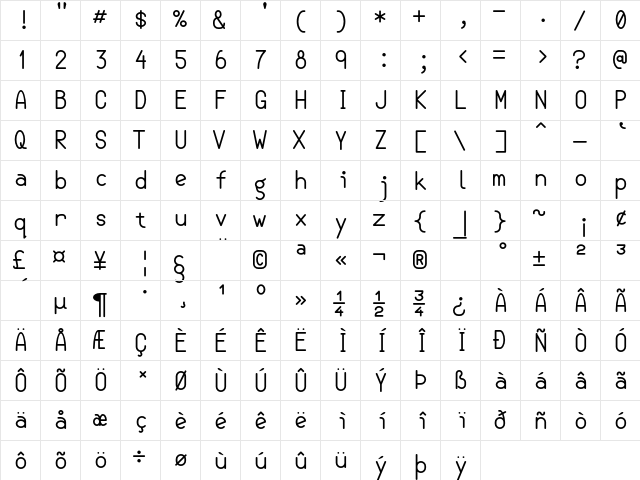
Semi-Coder Regular
Design Context for Semi-Coder Typeface
Semi-Coder brings the precise, column-aligned rhythm of monospaced typography to designs that value technical clarity and systematic order.
Pro Tip: Use Semi-Coder with slightly increased line-height for extended reading — fixed-width spacing can feel dense in longer passages without extra breathing room.